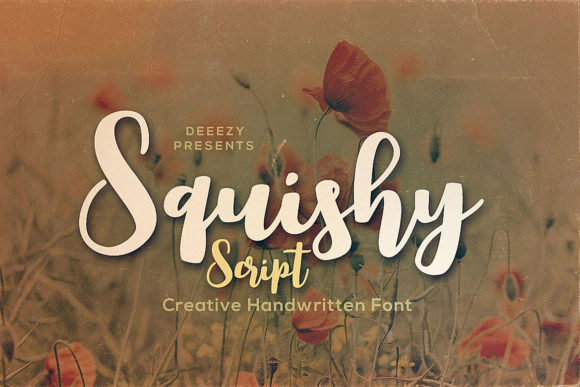
About Squishy Script Font
Meet The Squishy, a bold handwritten script font that effortlessly combines boldness with elegance, providing your designs with a striking touch. The distinctive feature of bold letters in this font not only adds a visually impactful element but also retains an overall sense of refinement.
The Squishy stands out as a versatile design asset that can be seamlessly incorporated into a variety of creative projects. Its bold script imparts a sense of confidence and attention-grabbing flair, making it ideal for applications where you want your text to make a bold statement.
Whether you are working on branding materials, posters, headlines, or any design element that requires a striking typographic presence, The Squishy delivers with its bold and handwritten aesthetic. It lends a unique character to your design while maintaining an elegant feel, creating a harmonious balance between boldness and sophistication.
The bold letters of The Squishy font not only draw attention but also ensure readability, making it suitable for a range of design contexts. Whether you’re creating eye-catching titles or emphasizing key messages, The Squishy stands as a reliable choice.
In conclusion, The Squishy is more than just a font; it’s a design tool that adds a bold and elegant dimension to your creative projects. Whether you’re aiming for a powerful typographic statement or seeking to enhance the visual impact of your designs, The Squishy provides the perfect blend of boldness and refinement. Embrace the striking yet elegant charm of The Squishy and elevate your designs with its bold handwritten script.